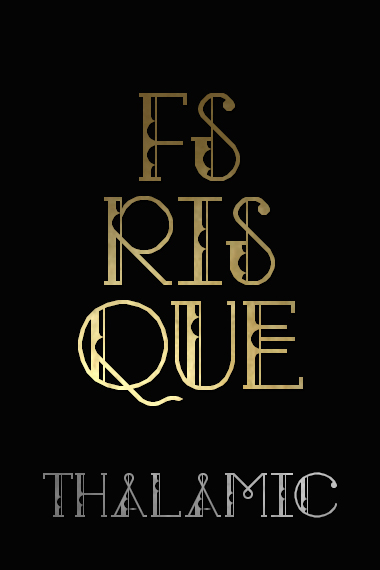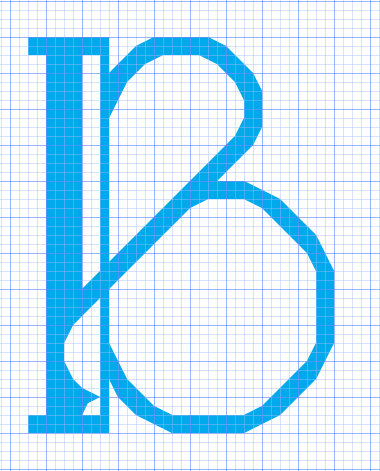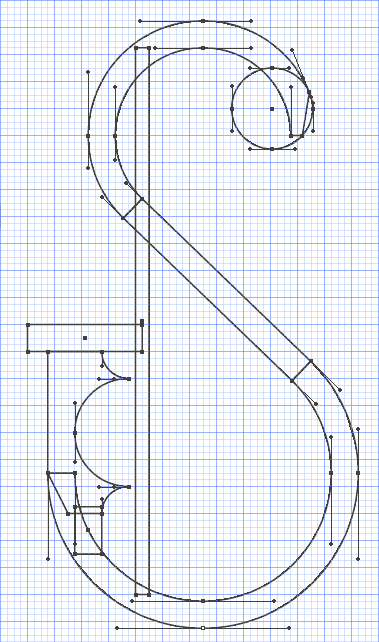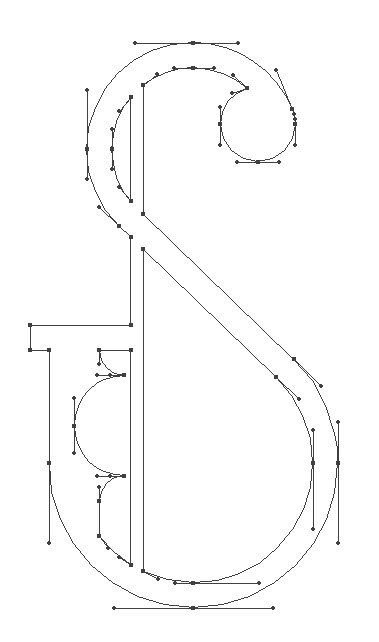
I gave up working on this font last year because it looked ugly. Then I found it a few days ago and somehow it turned into this presentable form. Hope you like it.
However, the curves are quite faceted as I don't have the patience of other more accomplished fontstructors here. I wish I did.
Åwesome! 10/10
I think you somehow used the wrong word here. Instead of "ugly" you should have used "exeptionally beautiful".
A touch of deco brilliance!
I---have---no---words! :-o
I---have---no---works! 8-O
I attempted to make the glyph in vector. Following is the result. It was not to predictable what the curves should be like. Consequently, the shape changed slightly, but significantly enough that it is markedly different.
Wow! An exquisite art deco font that goes beyond the clichés of the 1930s. What a delight. 10/10
Very elegant. Are you planning to vectorize the whole font? That last sample is impressive!
Pretentious description deleted? That won't do. So here:
fs RISQUE psychologically transports the viewer permeating time and space in a subterfuge of post-industrial delineation sublimely juxtaposed with surreptitious modernity and quantum temporality revealing an alternative visual historicity. The precarious assemblages stroke the fabric of consciousness by cutting through the governance of form and functionality, delving into thought, into the realm of meaning and belief - nay, the realm of the aesthetic, subconsciously reality.
You've outdone yourself. This succeeds where I wish I could have in creating a neo-retro 1920's vintage typeface. Bravo!
@four: I am. Vectorization efforts are underway. Thanks.
I'm speechless.... This is just purely amazing!
Not all of it, but at least the letters are now vector.
It was surprisingly simple. I would be remiss not to mention SubScribe—a free AI plug-in from Astute Graphics—that helped me create perfect tangents and perpendiculars to the curves. I say curves, but really just circles or arc of circles.
The glyphs are just made of bunch of basic shapes. They have not been united or anchor points optimized. That's the tedious bit. Next.
Fantastic! And that plug-in is something all vector drawing programs should be capable of doing. Makes me wonder why it wasn't done years ago. Really helpful. Thanks for sharing that info.
Yes, I wonder that myself.
Compared to the complexity of the software, this little bit of functionality is probably just a script-type addition to it, as evident by SubScribe. I guess it must be because Adobe want the software to be more artistic as opposed to technical in nature.
But I do wish it was there by default.
This is how the letters should end-up.
Hey thalamic I was working on a real curves version of this, is it okay if I publish it clonable?
Beautiful vectors, that plug-in should be part of any font editing software.
I'm with four, and great sample btw.
A true beauty!
Truely elegant, I admire your skill and patience.
Awesome, in the true meaning of the word. This is why I started using Font Forge. And yes, it is indeed tedious adding anchor marks, lol, but the outcome is well worth the time.
I like this VERY much. Kind of Art Decoish with definite 30s feel.